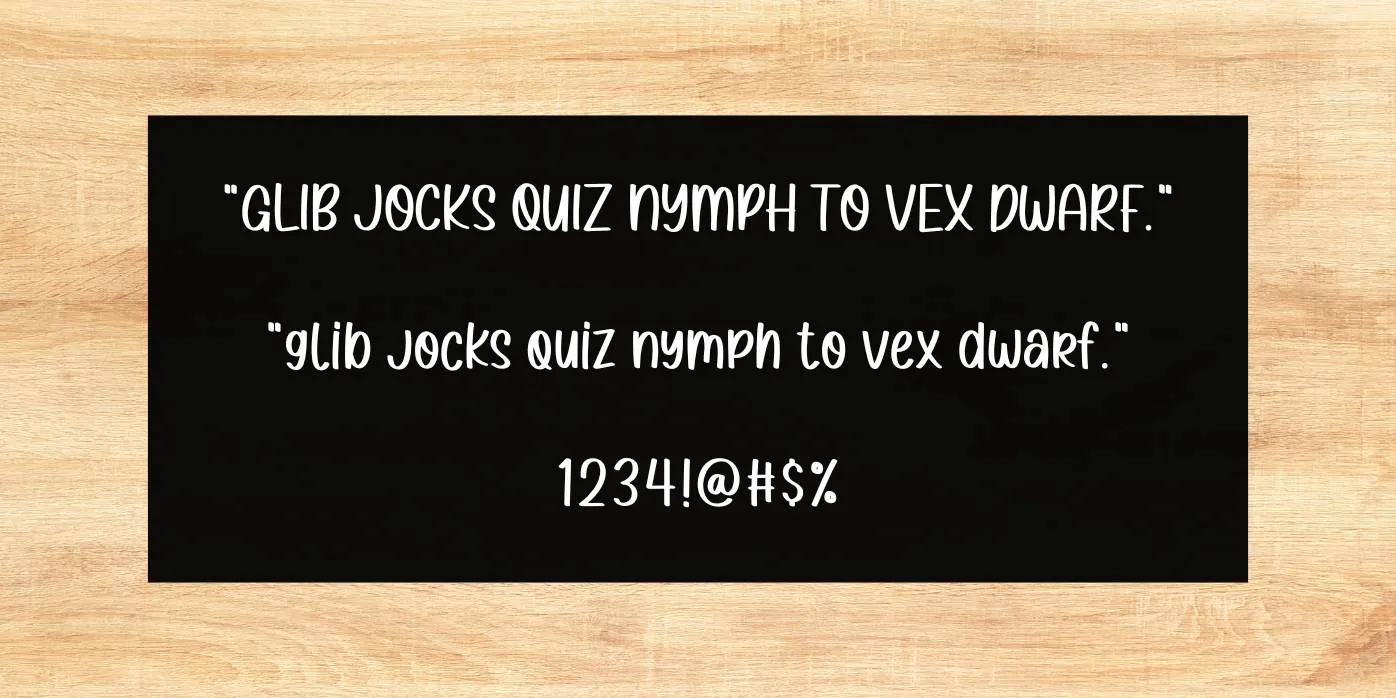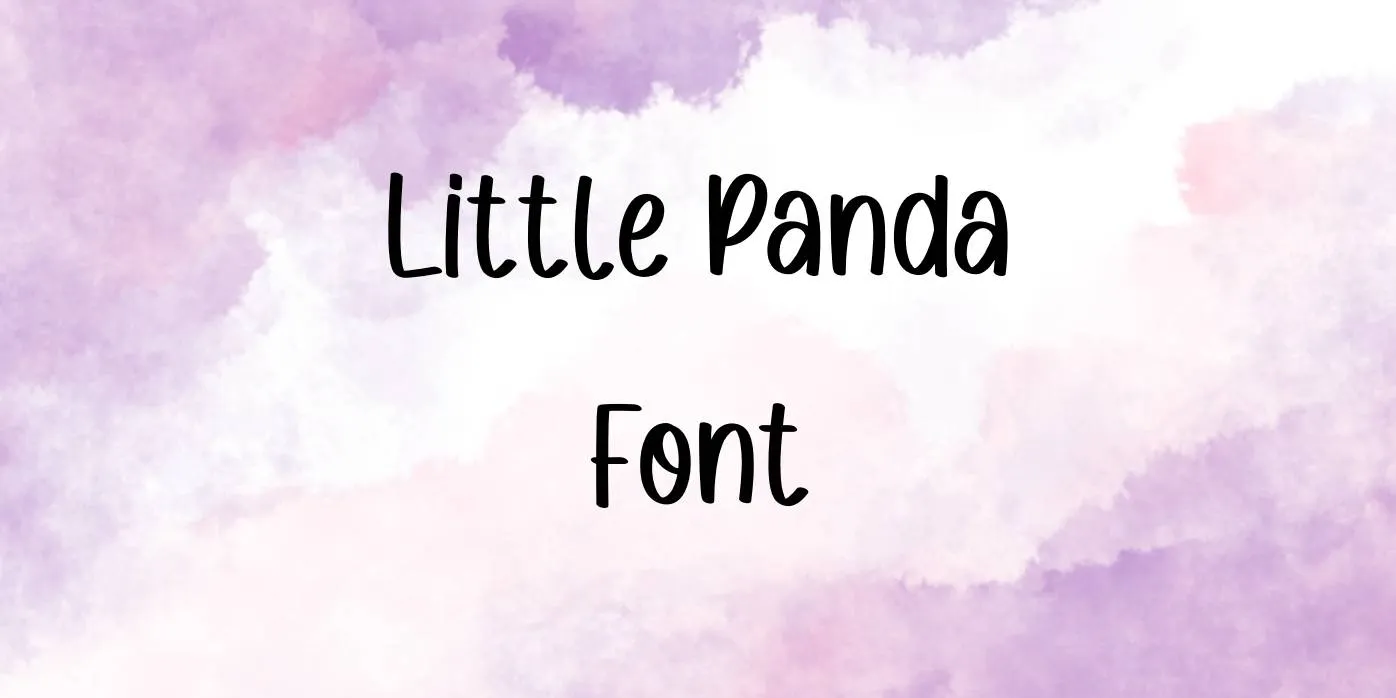
Little Panda Font
Little Panda Font is a handwritten typeface. Suby Studio designed this typeface. The characters of this typeface are thin, and stylish, and has unequal space between characters. The typeface that is stunning for pairing with this typeface is pilsen extra font.